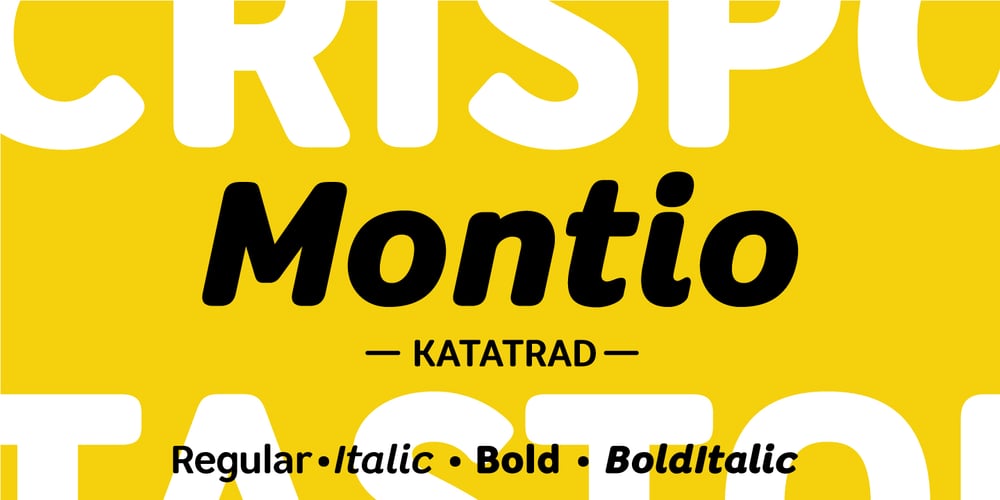
Montio
Montio font
Montio Font Family was designed by Thanarat Vachiruckul and published by Katatrad. Montio contains 4 styles and family package options. Montio is a simple Humanist sans serif typeface with rounded corners. It’s a family of 4 fonts: 2 weights and their italics.